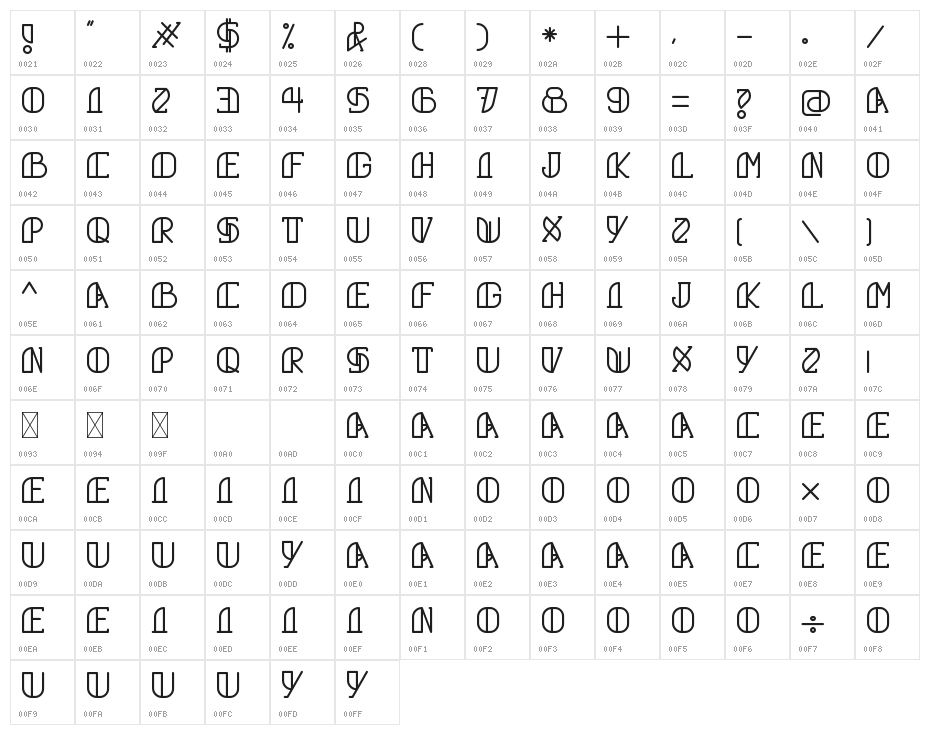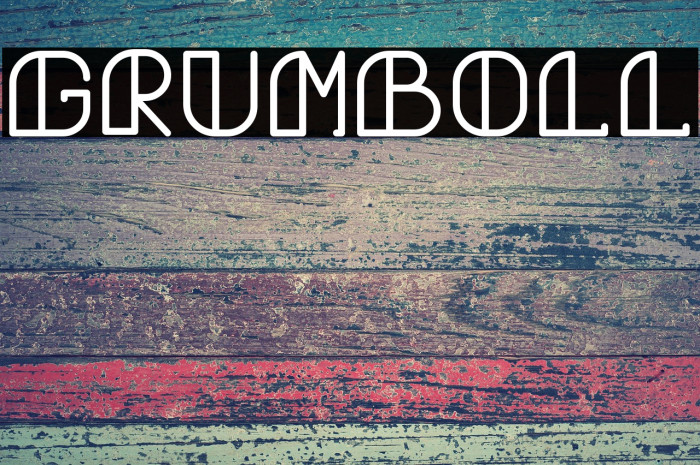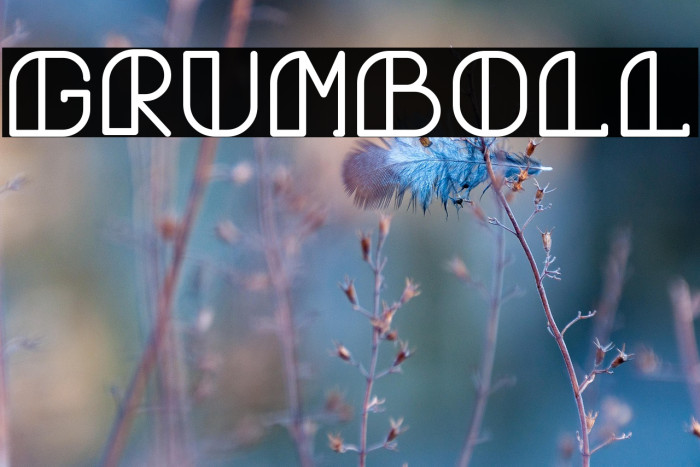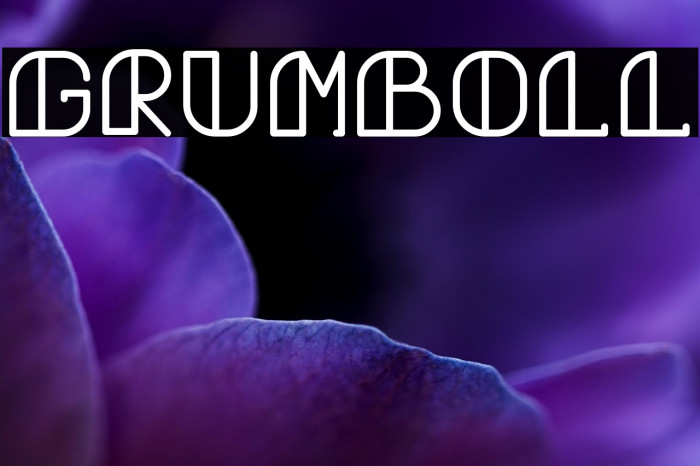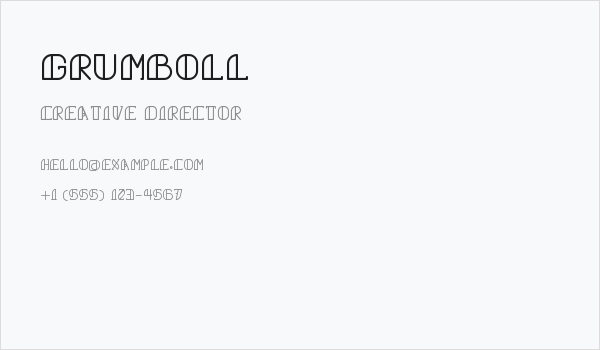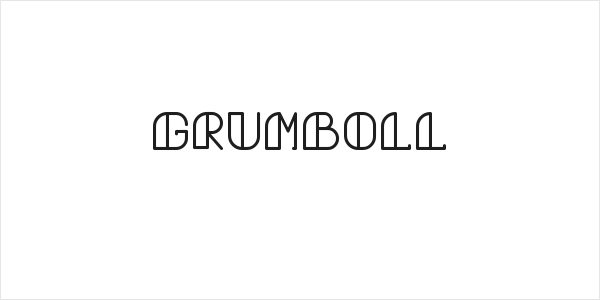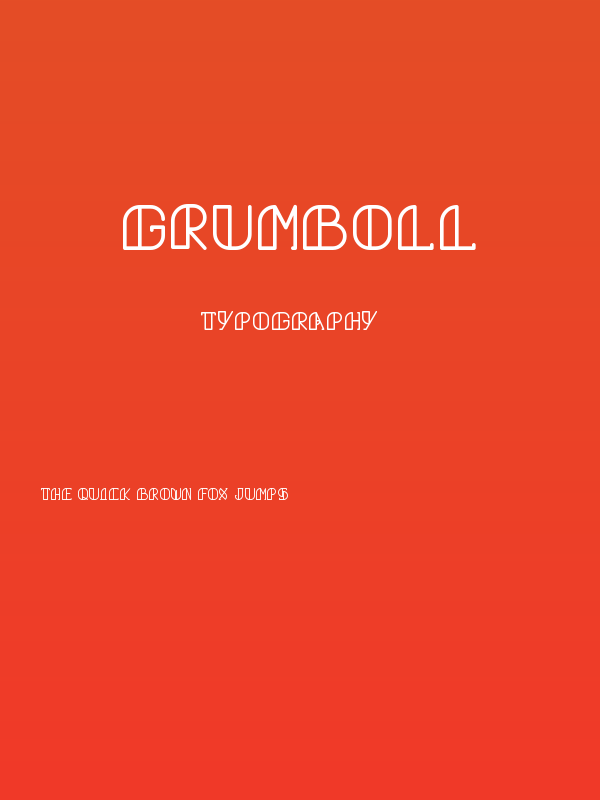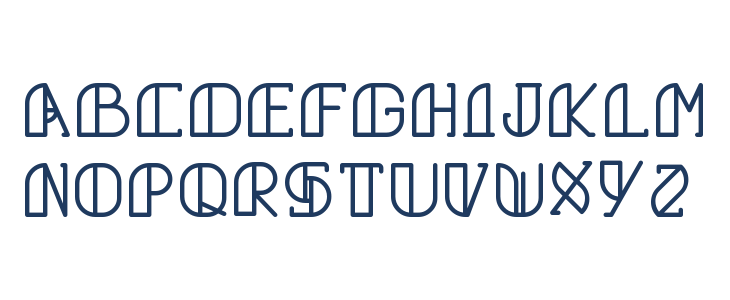
Grumboll Font
Grumboll Description
This font features a unique and modern design with geometric elements and a clean, minimalist aesthetic. The characters are constructed with a combination of straight lines and curves, creating a futuristic and stylish appearance. The uppercase and lowercase letters maintain a consistent style, with some characters incorporating unexpected angles and cuts that add visual interest. The numerals and special characters follow the same design principles, ensuring a cohesive look across all glyphs. This font is well-suited for projects that require a contemporary and distinctive typeface.
| Proposed Projects | Ideal for branding, logos, posters, and digital media that require a contemporary and unique typeface. |